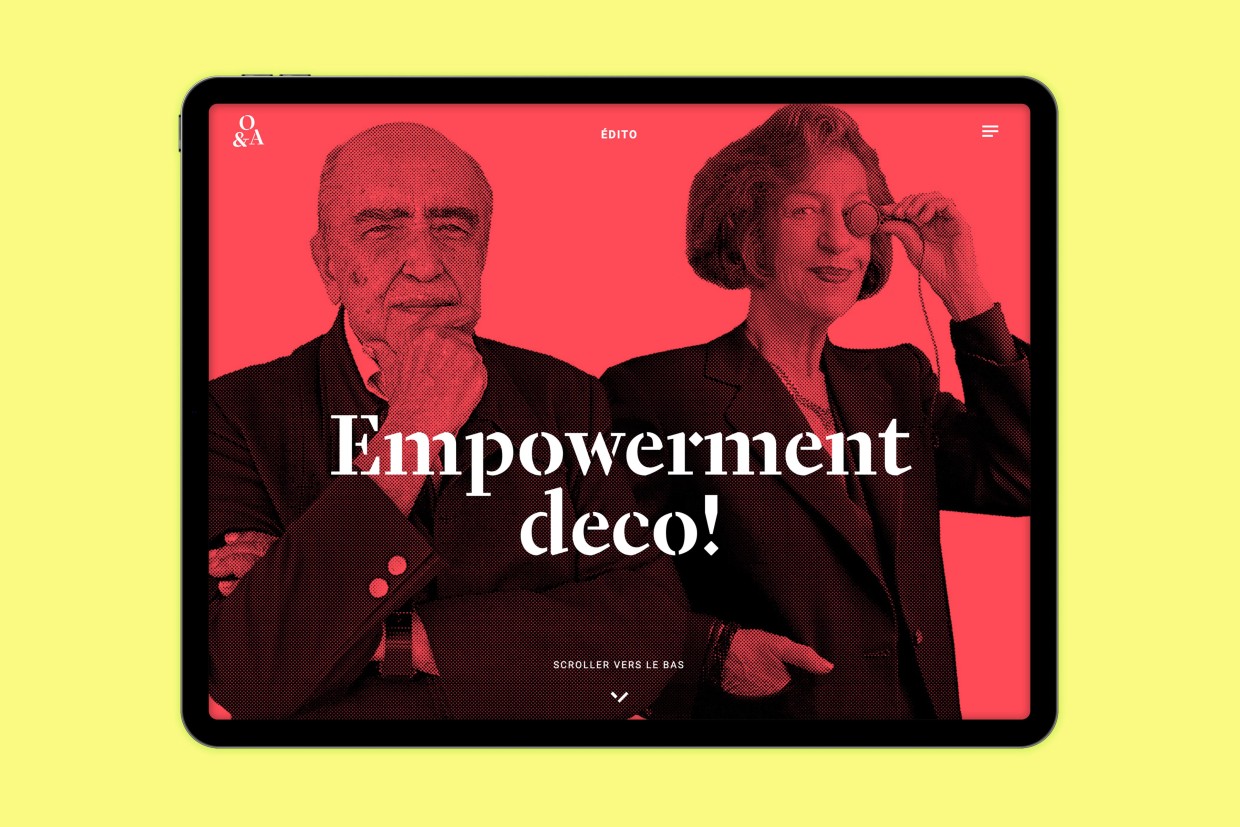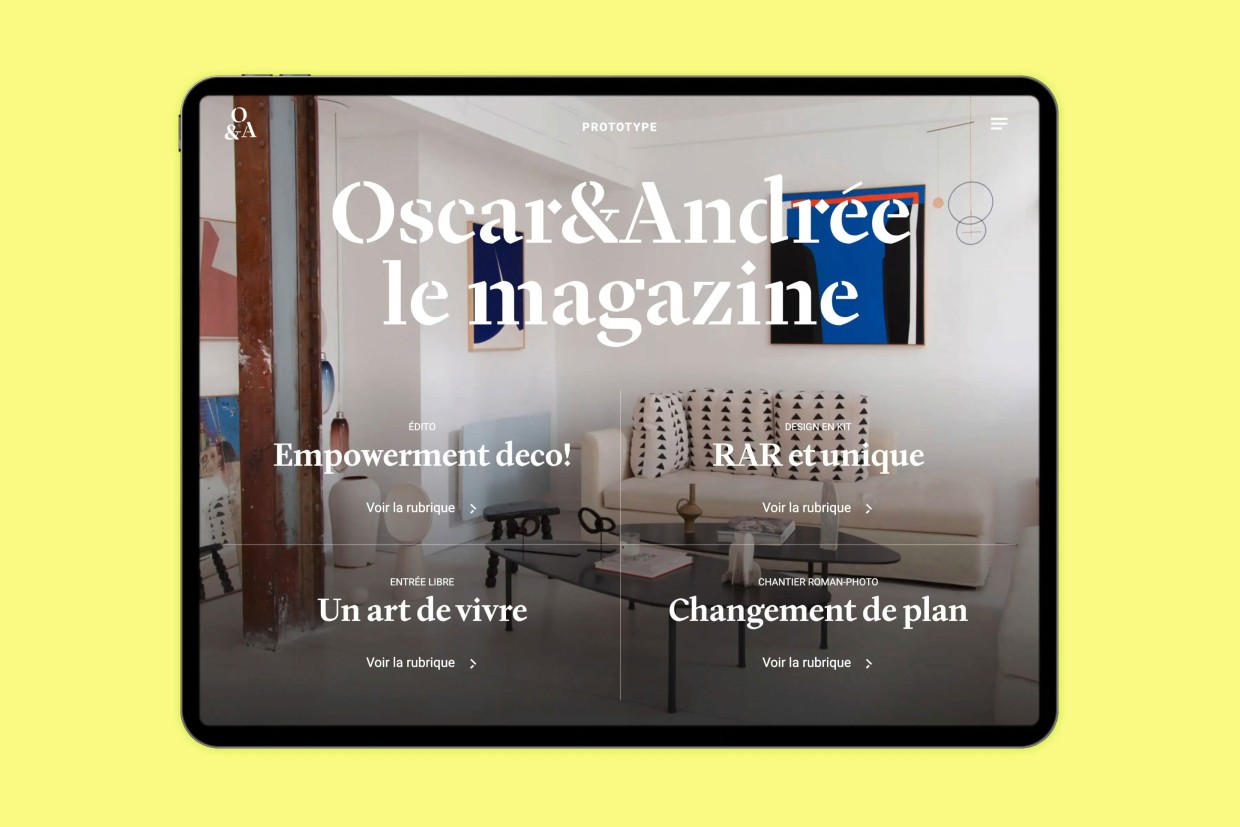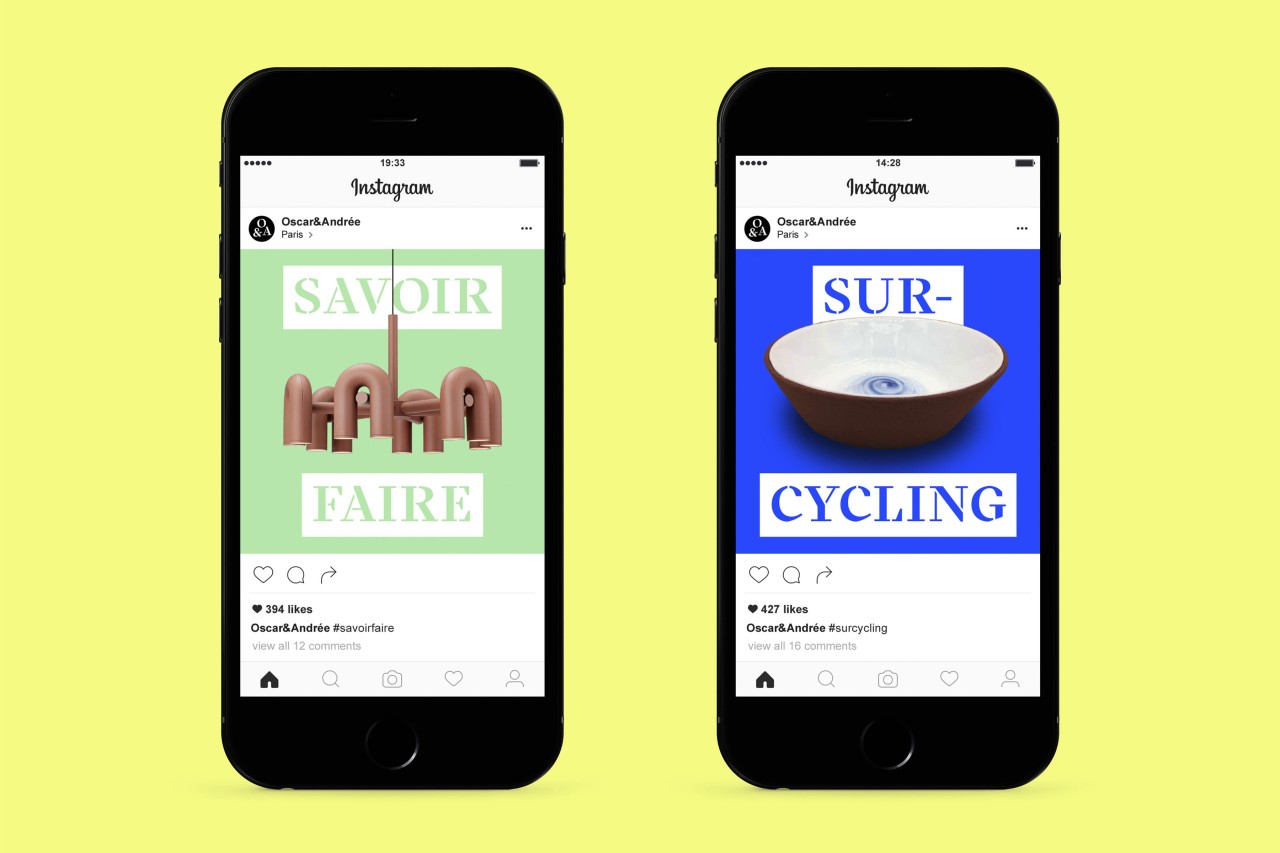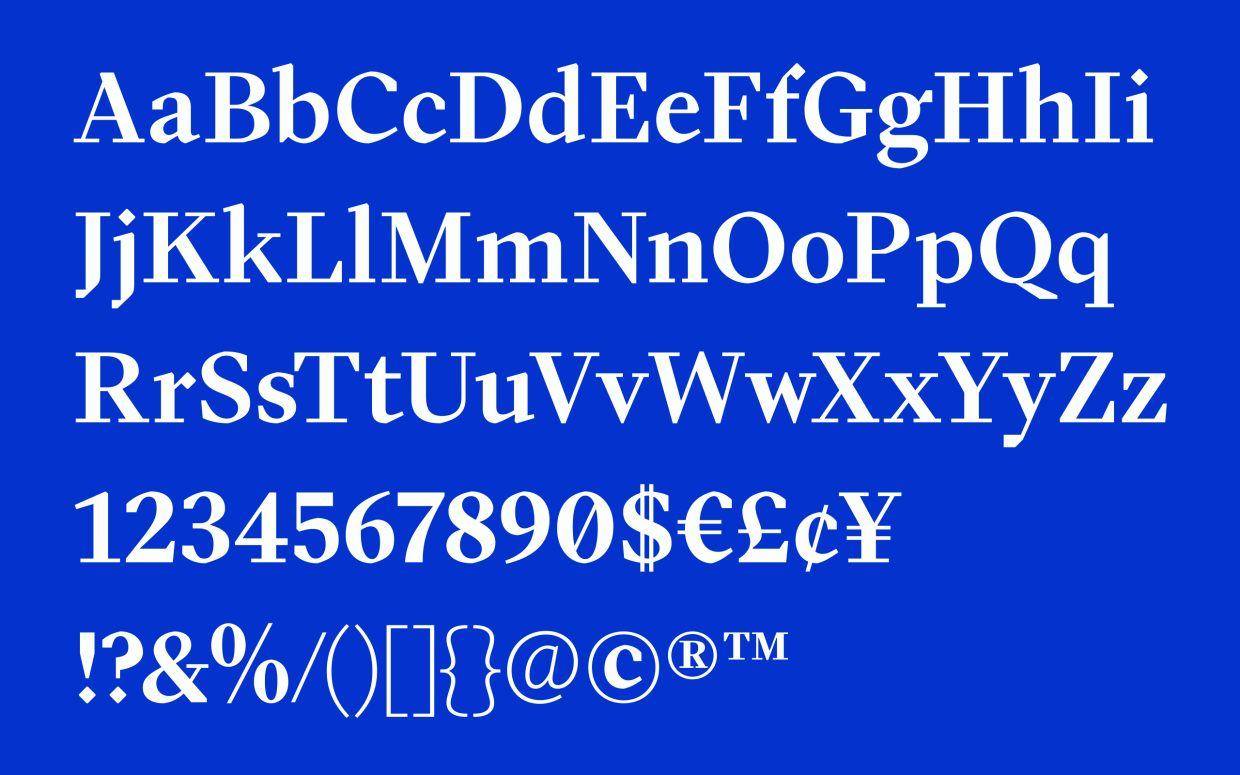
Oscar&Andrée is an online press platform dedicated to design and architecture. When the Paris-based studio deValence was commissioned to art direct the project, we developed a custom type family for the magazine’s app—designed from the outset to perform natively on screen while asserting a strong editorial voice.
The family is built in two complementary counterparts: Oscar is the standard version (in roman and italic), which is derived from the logotype we created. Andrée is its stencil twin, developed specifically for display use. Together, they form a distinctive typographic system that articulates hierarchy and tone across platforms.
Formally, Oscar is a sturdy serif with a pronounced display character. Its construction reveals a vivid calligraphic ancestry: modulation is tangible, strokes retain a sense of gesture, and the rhythm of the text carries a subtle tension between structure and movement. At the same time, the design fully embraces its digital destination. Proportions, spacing, and detailing were carefully calibrated for screen rendering, ensuring clarity and personality at various sizes and resolutions.
The capitals are particularly emblematic—bold in silhouette, unmistakable in presence—anchoring headlines with confidence. In Andrée, the stencil cuts sharpen this identity, introducing a graphic interruption that amplifies impact in titling and large-scale compositions.
In deliberate contrast to the substantial weight of the main strokes, accents and punctuation marks are drawn remarkably fine. This tension between mass and delicacy reinforces the typeface’s singular character, lending the editorial system both authority and refinement.
Oscar&Andrée ultimately embodies a dialogue between heritage and contemporaneity: a serif rooted in calligraphic tradition, purpose-built for the expressive demands of digital publishing.